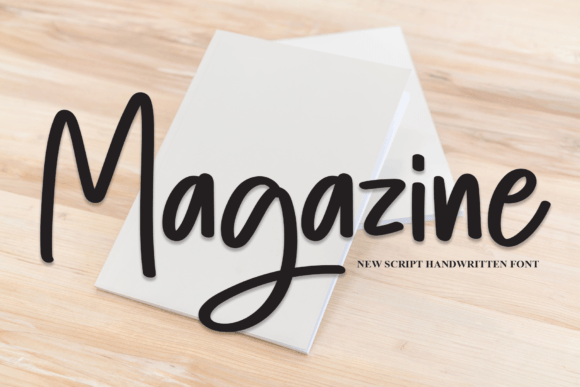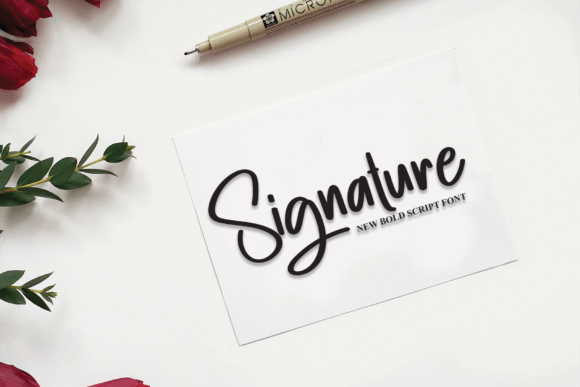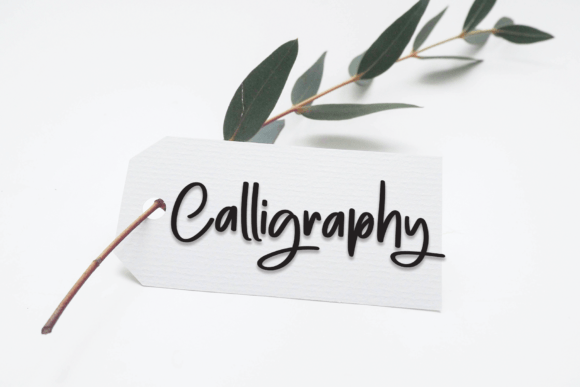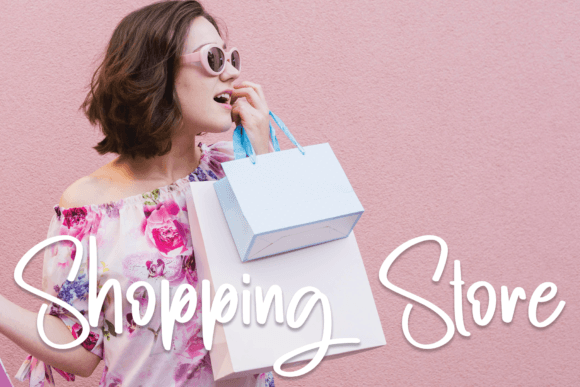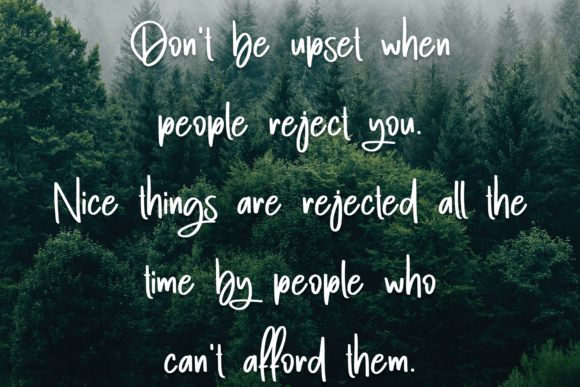
About Magazine Font
“Magazine” is a unique and beautiful handwritten font that promises an extraordinary and distinctive experience for your design projects. This font is versatile and well-suited for a wide range of applications, making it an excellent choice for wall displays, wedding invitations, social media posts, logos, advertisements, product packaging, product designs, labels, photography watermarks, stationery, and any project that benefits from a handwritten touch.
The charm of “Magazine” lies in its ability to provide a distinctive and visually appealing aesthetic. Each character is thoughtfully designed to exude individuality and style, making it an ideal choice for projects where you want to create a memorable and eye-catching impression. Whether you’re working on digital or print materials, “Magazine” offers a versatile and stylish script that adds a touch of creativity to your content.
For personal branding, product designs, promotional materials, and a wide range of design applications, “Magazine” provides the creative freedom to make your projects stand out. Its unique handwritten style can enhance the visual appeal of your designs and effectively convey your message to your audience.
In summary, “Magazine” is a valuable font that brings uniqueness and creativity to your creative work. Its distinctive handwritten style and versatility make it suitable for a variety of applications, and its ability to convey individuality and style sets it apart. With “Magazine” in your font collection, your design projects will exude a sense of creativity and uniqueness that leaves a lasting impression.